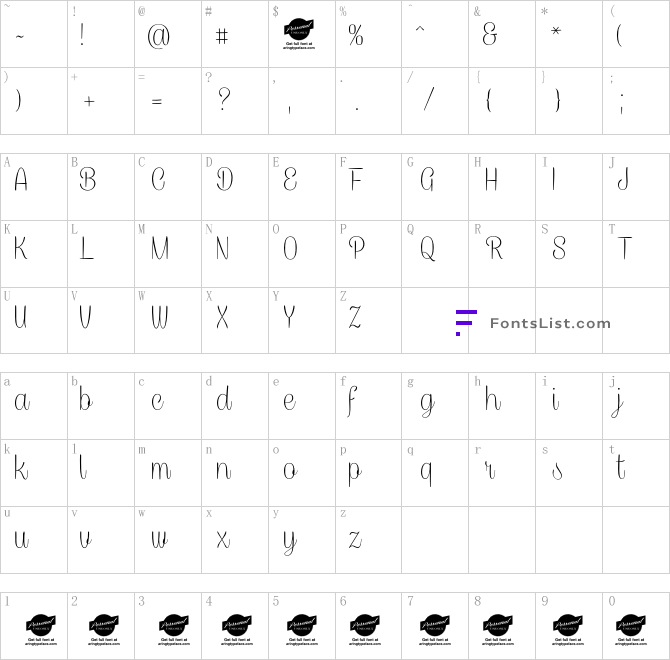
- Font Name:Caneletter Script Thin Personal
CaneletterScriptThinPersonal.otf is a very beautiful artistic font, CaneletterScriptThinPersonal.otf is widely used in the design and printing of various books and pictures,CaneletterScriptThinPersonal.otf has a strong visual impact,CaneletterScriptThinPersonal.otf is a commonly used font in newspapers, magazines and books, and is used in posters, e-commerce Poster design, store design, logo design, font design and other fields.CaneletterScriptThinPersonal.